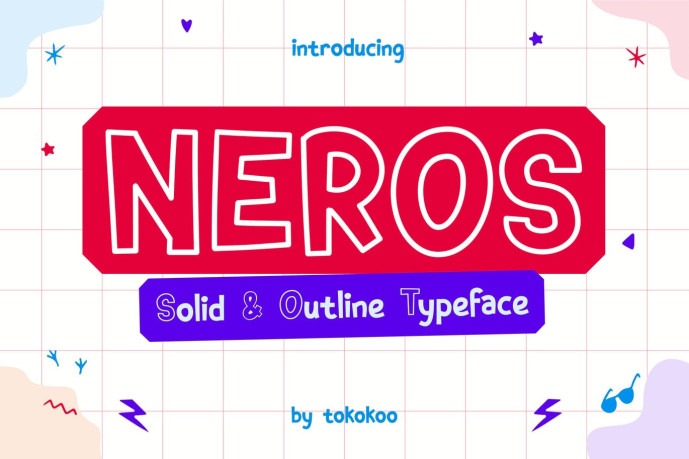
Neros Font
Designer: Tokokoo
Neros Font is a playful outline and filled display type designed for creative branding projects, blending bold presence with rounded strokes, soft curves, and a cheerful visual rhythm. Its friendly proportions and clean outlines give designs a light, expressive tone while staying readable and flexible. Built to spark joy, NEROS works naturally in kids-focused visuals, creative campaigns, and social media graphics that need personality without clutter.
NEROS helps designers create cheerful, attention-grabbing headlines that feel fun and approachable. Whether used for kids books, playful branding, posters, editorial covers, or app visuals, its outline and filled styles offer flexibility for storytelling. The font connects emotionally with audiences who value warmth, creativity, and friendly expression—perfect for brands that want to feel human and joyful.